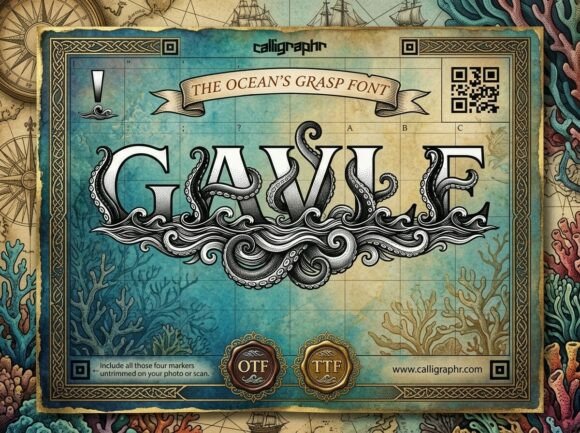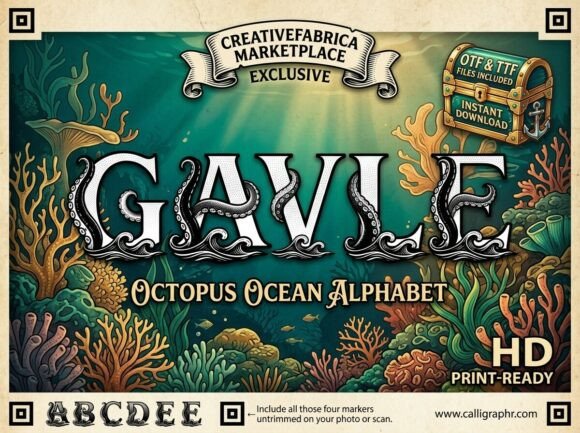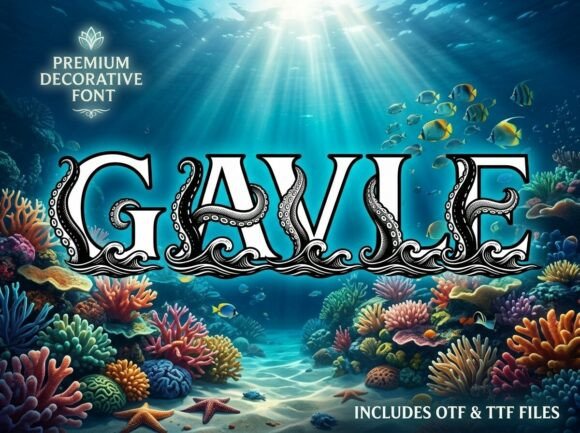
Introducing Gavle Font: A Stunning Decorative Display Font
Are you tired of using the same old fonts for your creative projects? Look no further than Gavle Font, a unique and artistic display font that’s sure to turn heads. Designed to be the center of attention, Gavle Font features a strong visual personality and versatile design that’s perfect for creators who want to break away from the ordinary.
What Makes Gavle Font Special?
Gavle Font is a decorative display font that’s specifically designed for high-impact headlines, logos, and decorative initials. With its unique artistic elements and strong visual personality, this font is perfect for creators who want to make a statement. Whether you’re designing a bold headline, a creative logo, or eye-catching packaging, Gavle Font is the perfect choice.
Key Features of Gavle Font
• Unique Artistic Elements: Gavle Font features unique artistic elements that set it apart from other fonts. Each letter is carefully crafted to be a work of art, making it perfect for decorative initials and high-impact headlines.
• Strong Visual Personality: With its strong visual personality, Gavle Font is sure to grab attention and make a lasting impression. Whether you’re designing a logo, headline, or packaging, this font is sure to stand out.
• Versatile Design: Gavle Font is versatile enough for a wide range of creative projects, from bold headlines and artistic logos to creative packaging.
• Professional and Polished Finish: Despite its decorative nature, Gavle Font maintains a professional and polished finish, making it perfect for use in a variety of creative projects.
Why Choose Gavle Font?
So why choose Gavle Font for your creative projects? Here are just a few reasons:
• Add a Touch of Elegance: With its unique artistic elements and strong visual personality, Gavle Font adds a touch of elegance and sophistication to any creative project.
• Stand Out from the Crowd: Gavle Font is sure to grab attention and make a lasting impression. Whether you’re designing a logo, headline, or packaging, this font is sure to stand out.
• Perfect for Creative Projects: Gavle Font is perfect for a wide range of creative projects, from graphic design and branding to crafting and DIY projects.
Tips for Getting the Most Out of Gavle Font
• Use it for Headlines and Titles: Gavle Font is perfect for use in headlines and titles. Its unique artistic elements and strong visual personality make it sure to grab attention.
• Experiment with Different Colors: Gavle Font looks great in a wide range of colors. Experiment with different colors to find the one that works best for your creative project.
• Pair it with Other Fonts: Gavle Font can be paired with other fonts to create a unique and eye-catching design. Experiment with different font combinations to find the one that works best for your project.
In conclusion, Gavle Font is a stunning decorative display font that’s perfect for creators who want to break away from the ordinary. With its unique artistic elements, strong visual personality, and versatile design, this font is sure to grab attention and make a lasting impression. Whether you’re designing a bold headline, a creative logo, or eye-catching packaging, Gavle Font is the perfect choice.